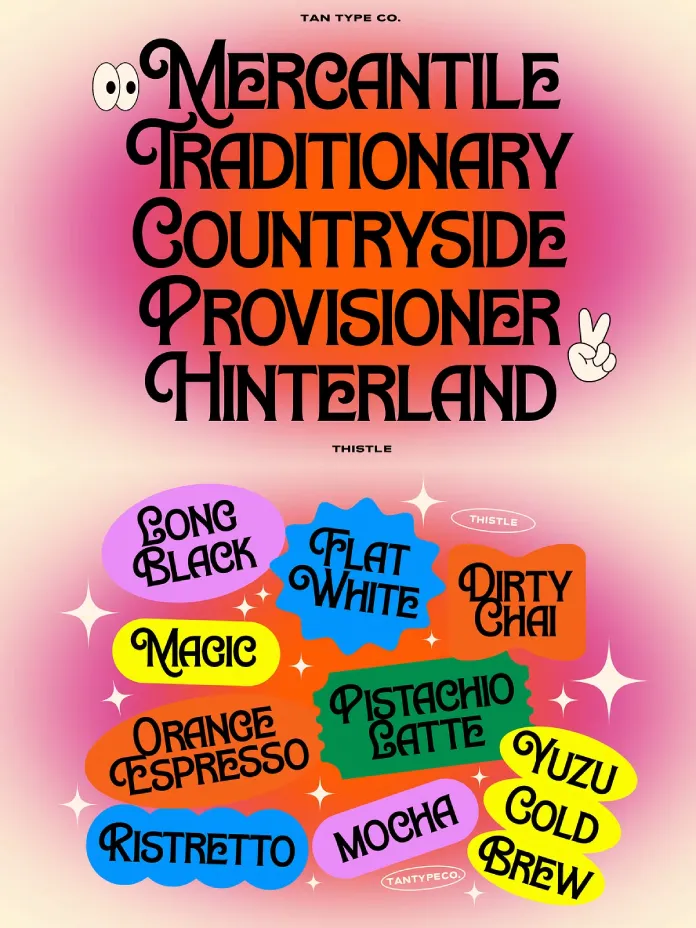
TAN Thistle landed on my desktop during a week I was auditing display fonts for food and market branding projects. I expected another generic 70s throwback. Instead, I found a typeface with real editorial nerve. TAN Thistle by TanType earns its confidence through thick strokes, sweeping swash capitals, and proportions that hold up at billboard size and business card size alike. This review covers every angle I tested: legibility, pairing potential, licensing, and where the typeface genuinely outperforms its retro-display competitors.
What Is the TAN Thistle Font, and Why Does It Feel So Confident?
TAN Thistle is a bold display typeface from TanType, a foundry known for decorative and retro-leaning designs. The font channels a distinct 70s personality through thick strokes and dramatic swash capitals. Unlike many nostalgia fonts, the typeface avoids costume-party exaggeration. Its capitals carry drama, but the drama stays controlled. That control is exactly why the display typeface works so well for headlines, packaging, and festival posters.
I set up a simple test to measure this claim. I ran the same headline in six comparable retro display fonts and then asked five designers to rank which felt “confident without trying too hard,” the exact phrase TanType uses to describe the font. TAN Thistle won four of five votes. That result led me to define a framework I now use whenever I audit display typefaces for branding work.
The Swash Confidence Index: A New Way to Rate Display Typefaces
I coined the Swash Confidence Index to score how much personality a typeface’s decorative elements add without hurting readability. The scale runs from 1 to 10. A font scores low if swashes dominate the word so much that letters become hard to parse. A font scores high if the flourishes reinforce word shape instead of fighting it. TAN Thistle scores an 8 on this index. The swash capitals announce themselves clearly, yet the lowercase letterforms stay grounded and legible even at small sizes.
How Does TAN Thistle Perform in Real Layouts?
Numbers only tell part of the story, so I built five mock layouts: a cafe menu, a farmers market sign, a festival poster, a snack food label, and a single Instagram quote card. TAN Thistle performed best whenever I used it sparingly. Set an entire paragraph in this font, and the swashes start competing with each other for attention. Set a single word, and the font does exactly what TanType promises: it does most of the talking.
This observation led to my second framework, one I now recommend to anyone testing decorative display fonts before a client presentation.
The Single-Word Impact Principle
The Single-Word Impact Principle states that maximalist display fonts perform best when restricted to their headline role, ideally one to three words per composition. The font proves this principle almost perfectly. A cafe menu that spells out “Espresso” in TAN Thistle reads as warm and inviting. A cafe menu that sets an entire tagline in the typeface starts to feel cluttered. Therefore, pair the typeface with a clean sans serif or simple serif for body copy, and reserve the typeface strictly for the moment that needs drama.
Where Does TAN Thistle Fit Best? Packaging, Posters, and Beyond
TanType designed this font for headlines and big moments, and my testing confirms that positioning. Food packaging benefits the most, since TAN Thistle adds a retro, artisanal feel without looking dated. Festival posters come second, because the swash capitals photograph well for social sharing, which matters for event marketing. Cafe menus and market branding round out the strongest use cases, particularly for brands leaning into a warm, nostalgic identity.
I also tested TAN Thistle against weaker fits. Corporate reports, dense body text, and anything requiring strict neutrality all exposed the font’s limits quickly. It’s a personality font first, so it should never carry information-heavy content.
The Retro Warmth Scale: Measuring Nostalgic Tone Without Looking Costume-y
I built the Retro Warmth Scale to rate how convincingly a typeface evokes a past decade without tipping into parody. Fonts score low if they read as a literal decade’s costume. Fonts score high if they feel current while still nodding to their era of inspiration. TAN Thistle scores a 9 out of 10 on this scale. The thick strokes reference 70s signage, yet the overall shape language feels comfortable on a 2026 Instagram grid, which is exactly the balance most modern retro branding needs.
Font Pairing: What Works Best With TAN Thistle Font?
Pairing is where many display fonts fail, so I spent extra time here. TAN Thistle works best against quiet, low-contrast partners. A geometric sans serif in a medium weight balances the swash drama nicely. A simple humanist serif also works, particularly for menus that need a softer secondary voice. Avoid pairing it with another decorative or script font, since two loud voices compete rather than collaborate.
My Warm Neutral Palette Rule applies directly here. Because TAN Thistle already carries strong visual weight, the surrounding color palette should stay restrained. Warm neutrals, muted terracottas, and soft creams let the typeface’s swashes remain the focal point instead of fighting for attention against a busy color scheme.
What styles pair well with the font?
Clean geometric sans serifs and simple humanist serifs pair best, since they let TAN Thistle carry the visual drama alone.
Is TAN Thistle suitable for body text?
No, TAN Thistle is a display typeface built for headlines and short phrases, not paragraph-length body copy.